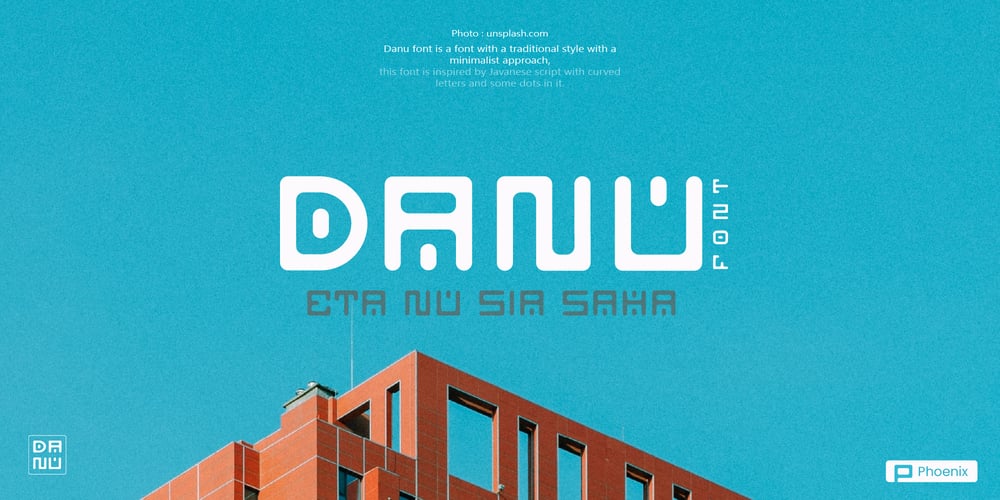
Danu
Danu font
Danu Font Family was designed by Alif Naufal Muzakki and published by Phoenix Group. Danu contains 1 styles and family package options. Danu font is a font with a traditional style with a minimalist approach, this font is inspired by Javanese script with curved letters and some dots in it.